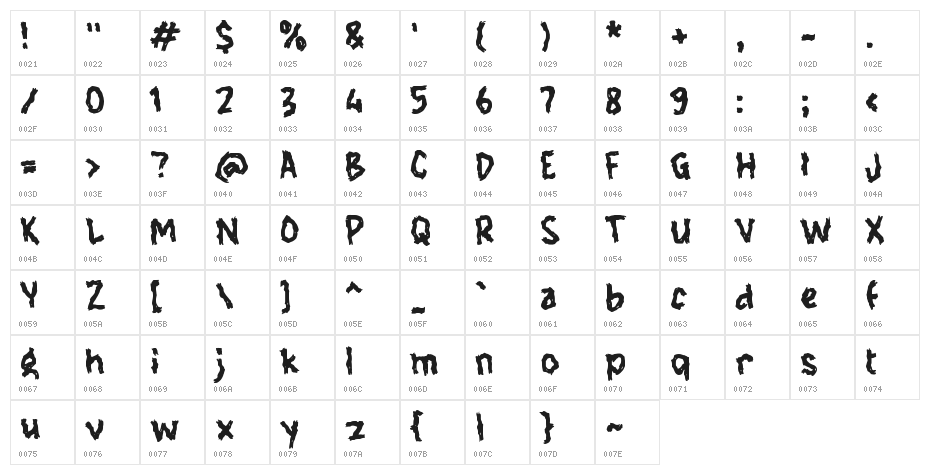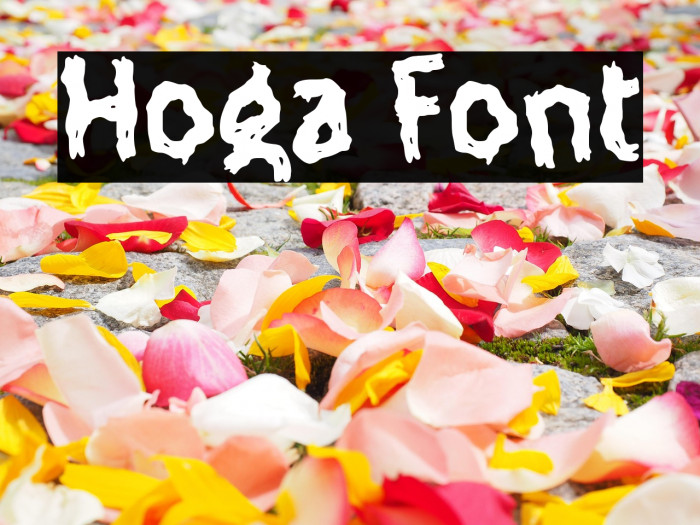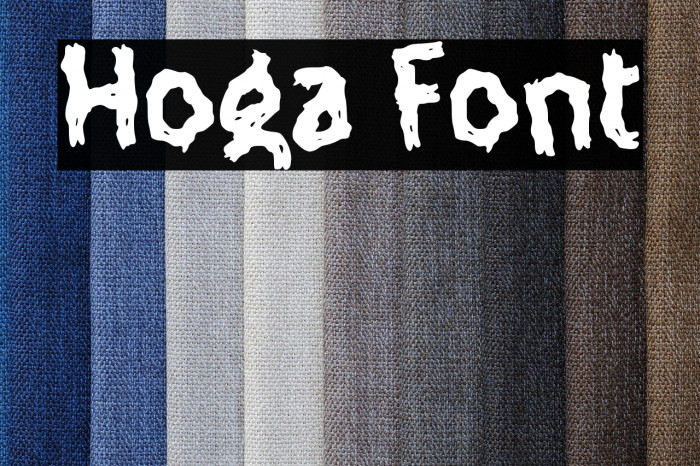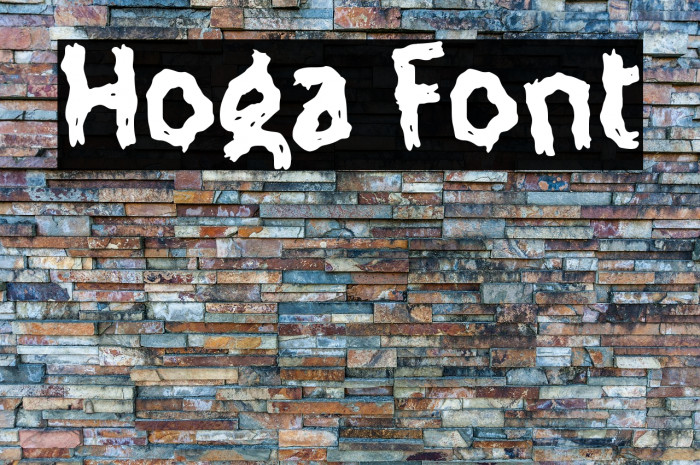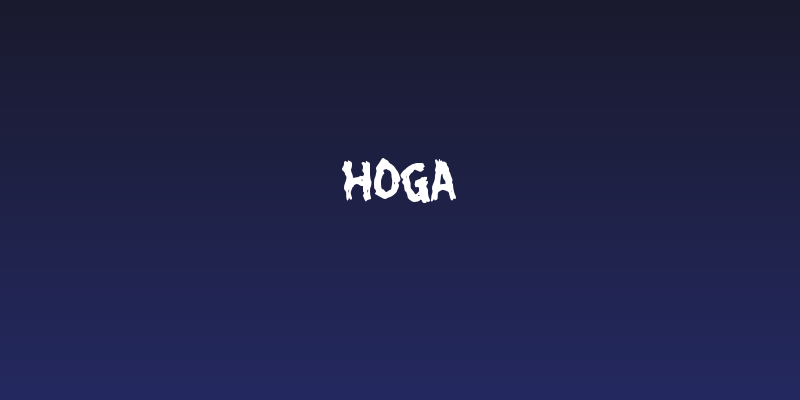
Hoga Font
Hoga Description
This font features a rugged, hand-drawn style with uneven edges and a bold presence. The characters are designed to appear as if they were painted with a brush, giving them a raw and organic feel. The uppercase and lowercase letters maintain a consistent style, with the uppercase being slightly more pronounced. Numbers and special characters follow the same aesthetic, ensuring a cohesive look across all text. The font's unique appearance makes it stand out, ideal for projects that require a bold and artistic touch.
HOGA UPPERCASE
HOGA LOWERCASE
HOGA OTHER CHARS